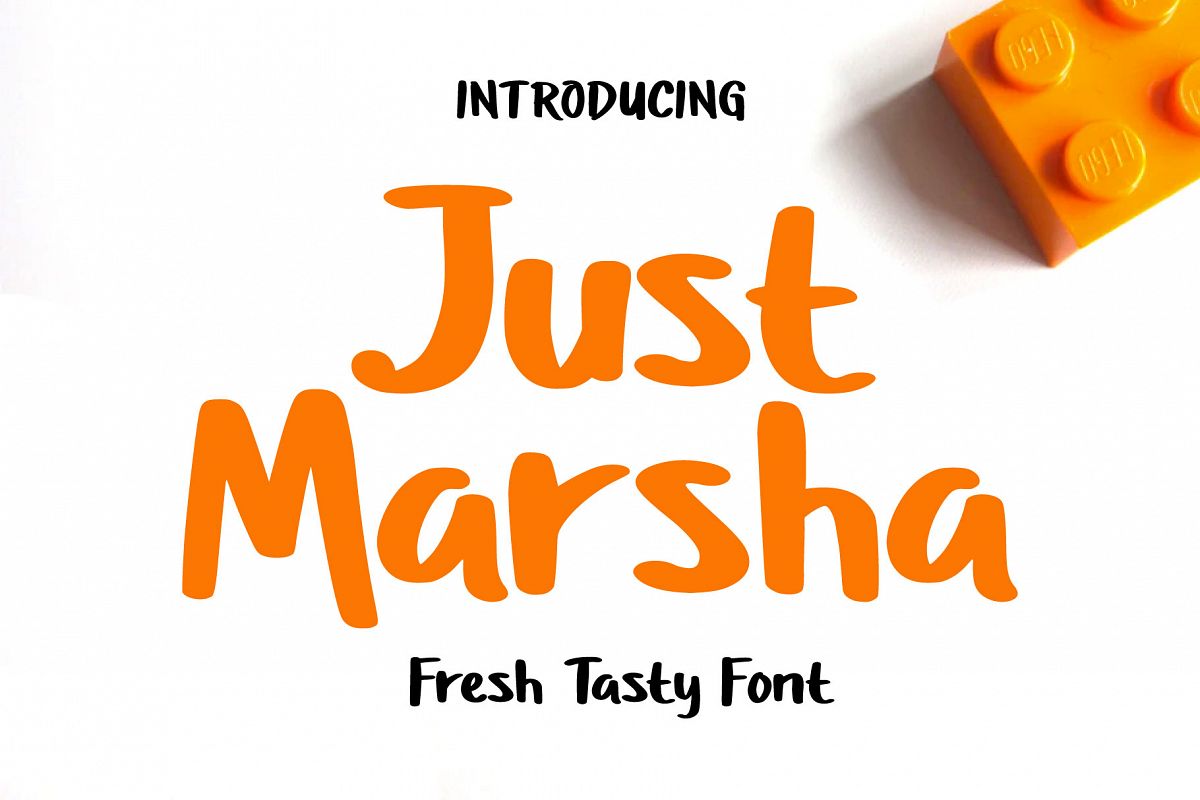
Just Marsha - Fresh Tasty Font
Just Marsha , 2 font with cheerful theme for your fun project. Just Marsha Display font has 2 different styles, regular & slant. This font is great for book covers, clothing brands, posters, packaging, clothing, branding, quotes, magazines and many others, this font can be the best choice for you.